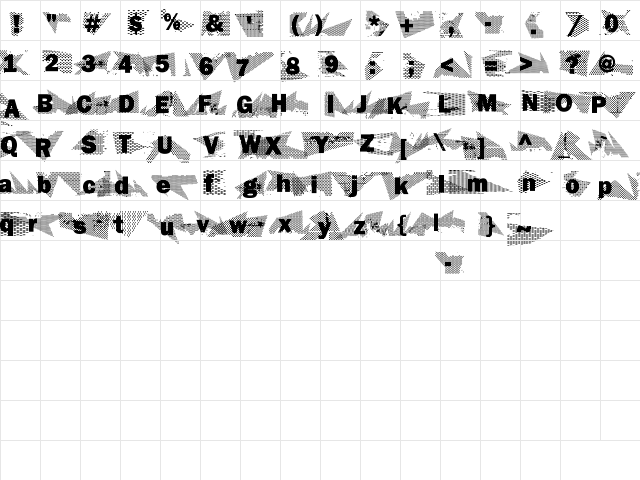
Love Runs Out Bold
Design Context for Love Runs Out Typeface
Love Runs Out is a composed and adaptable typeface that performs quietly and consistently across a wide range of design contexts. The heavy weight commands attention and anchors typographic hierarchies.
Pro Tip: Use Love Runs Out in both headline and body roles to test its range before committing to a single application.